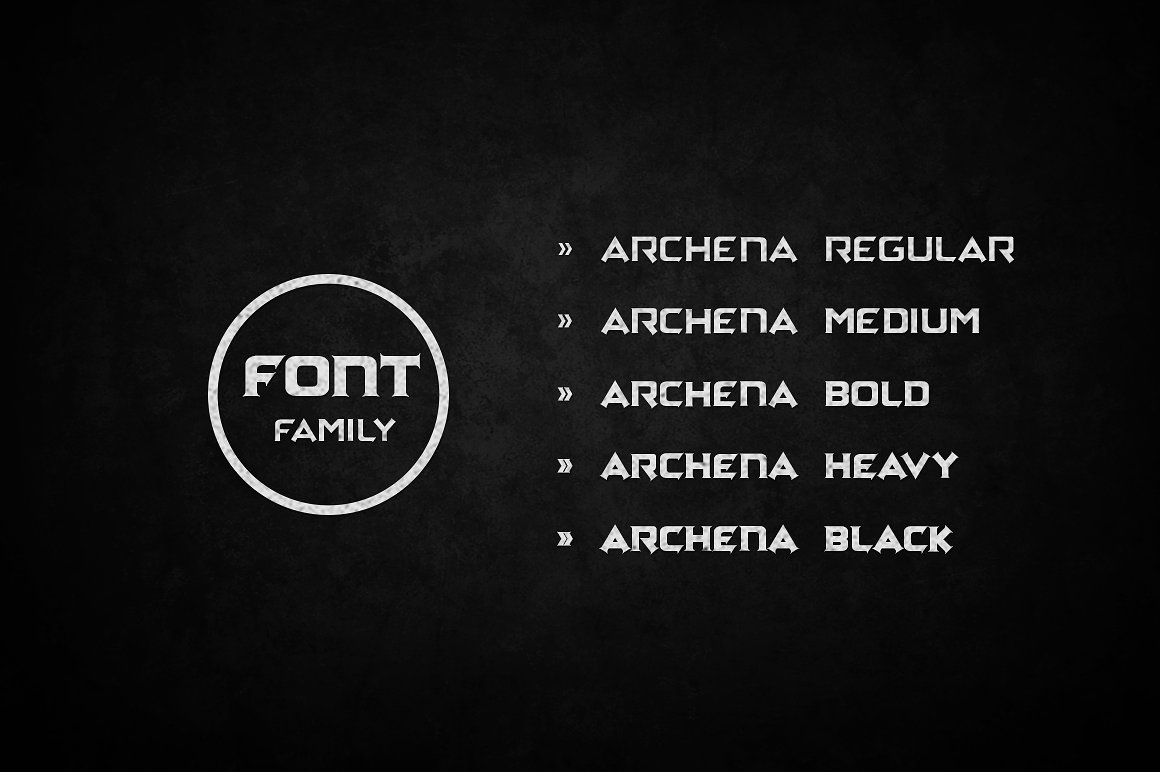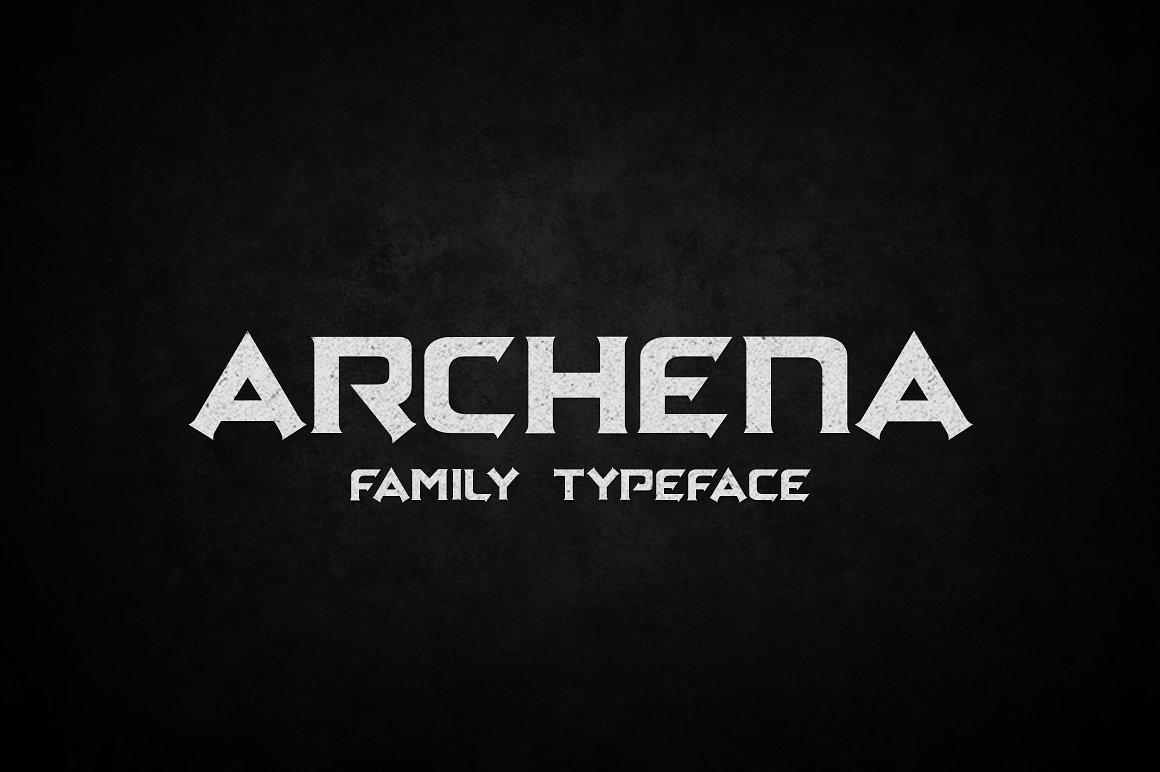
Archena
Archena Typeface
Archena Family Typeface
It is a display family typeface. The Archena typeface includes multi-lingual and currency support, numerals, and punctuations.